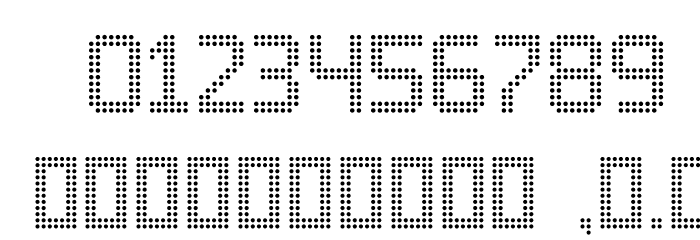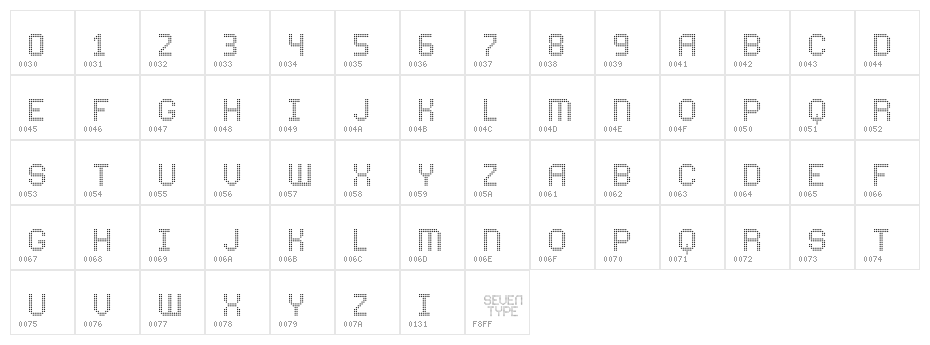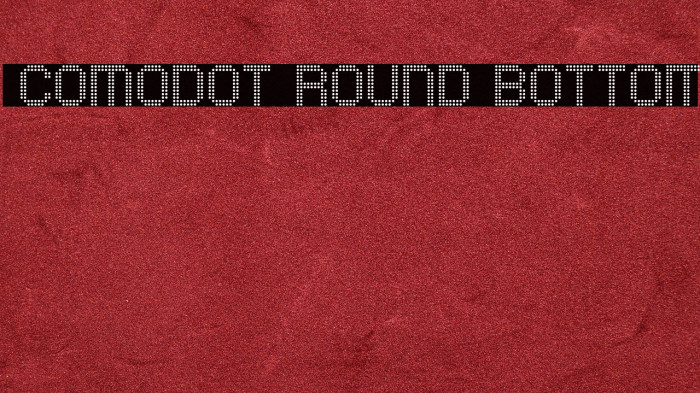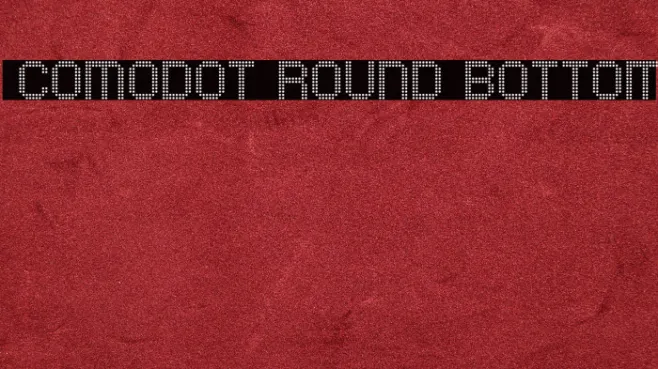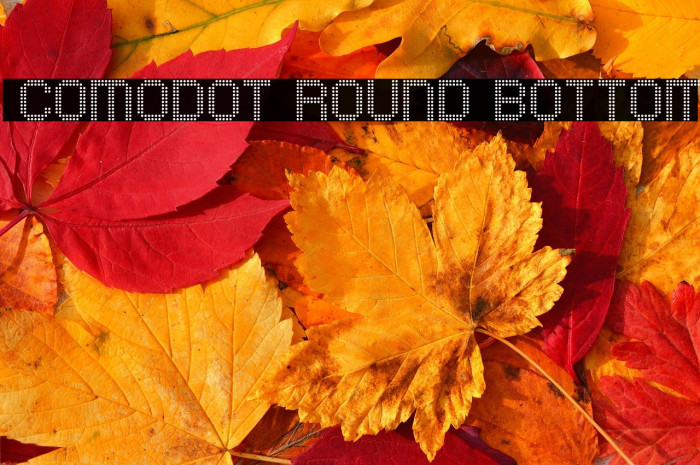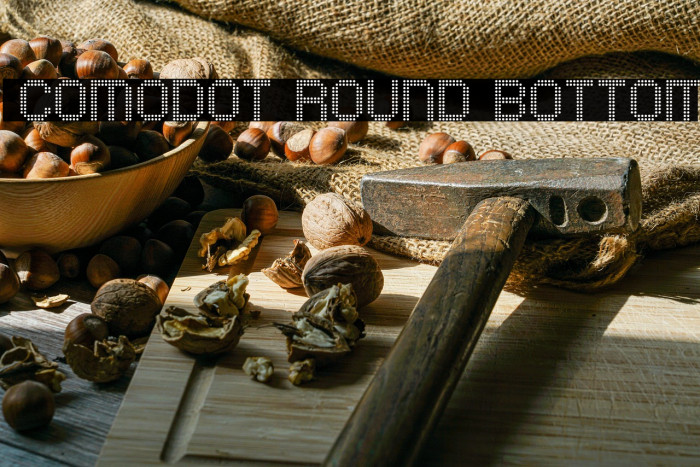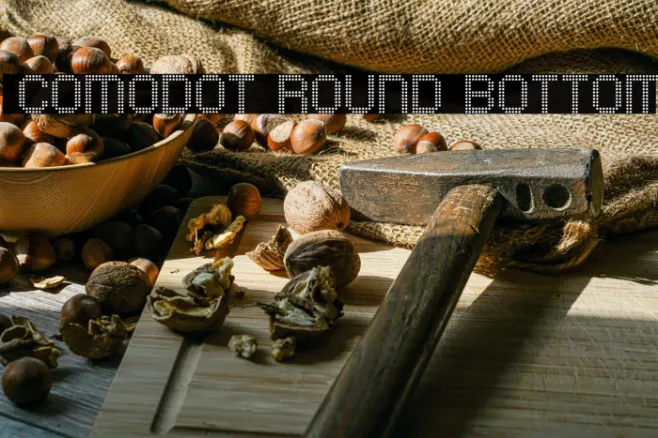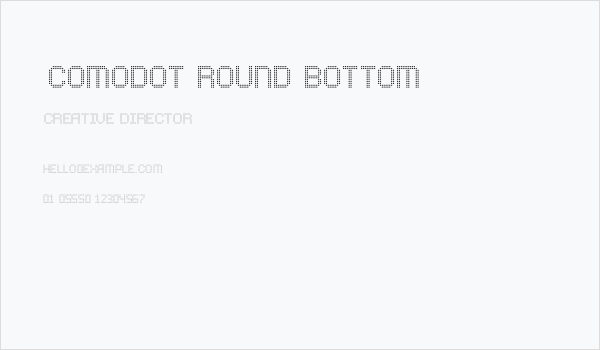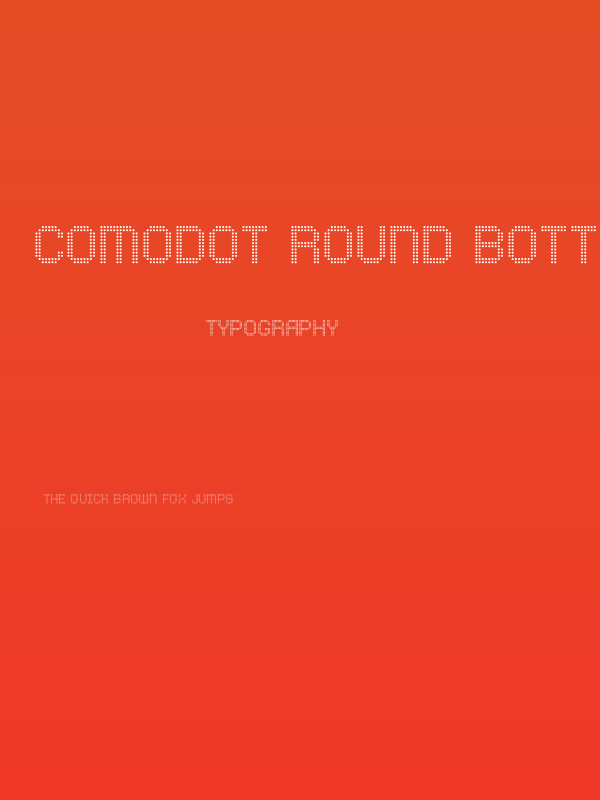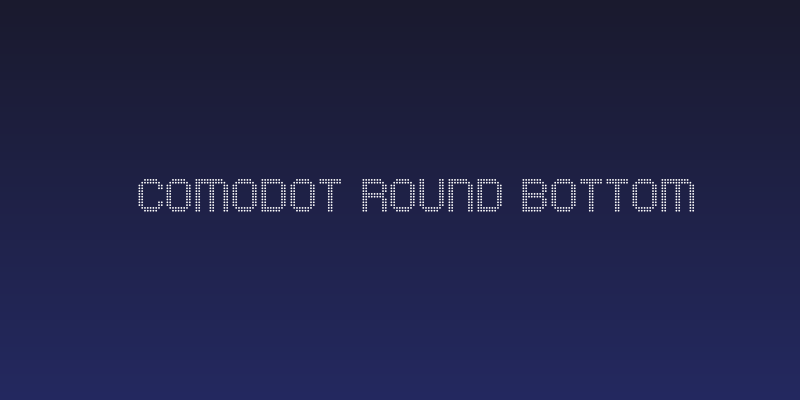
Comodot Round Bottom Font
Comodot Round Bottom Description
This font features a unique design composed entirely of small, evenly spaced dots forming each character. The geometric arrangement gives it a digital and modern appearance, reminiscent of LED displays or dot matrix printers. The characters are uniform in height and width, creating a consistent and structured look. The spacing between the dots is precise, contributing to the overall clarity and readability of the text. This font is particularly eye-catching and can be used to convey a sense of technology or futurism.
| Use Case | Headlines, Logos, Digital displays |
| Proposed Projects | Ideal for digital displays, tech-themed posters, futuristic branding, or any project requiring a modern, digital look. |